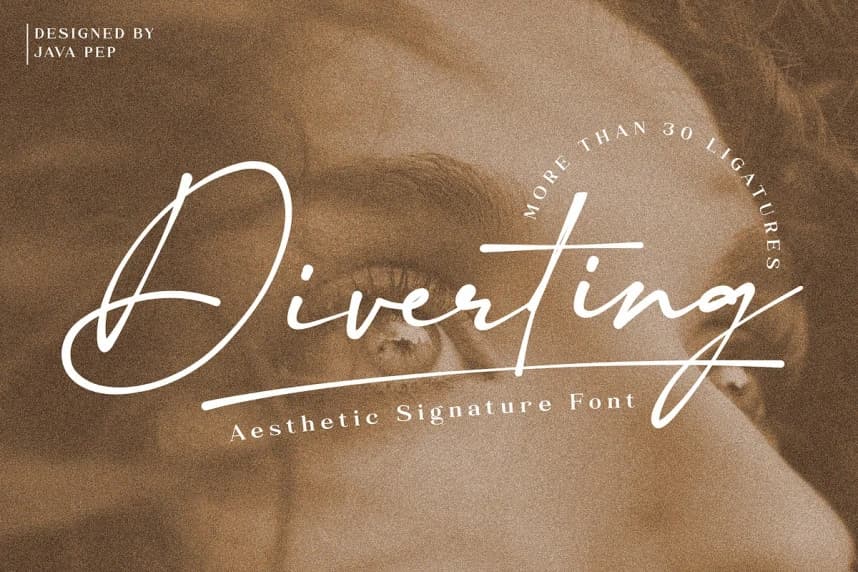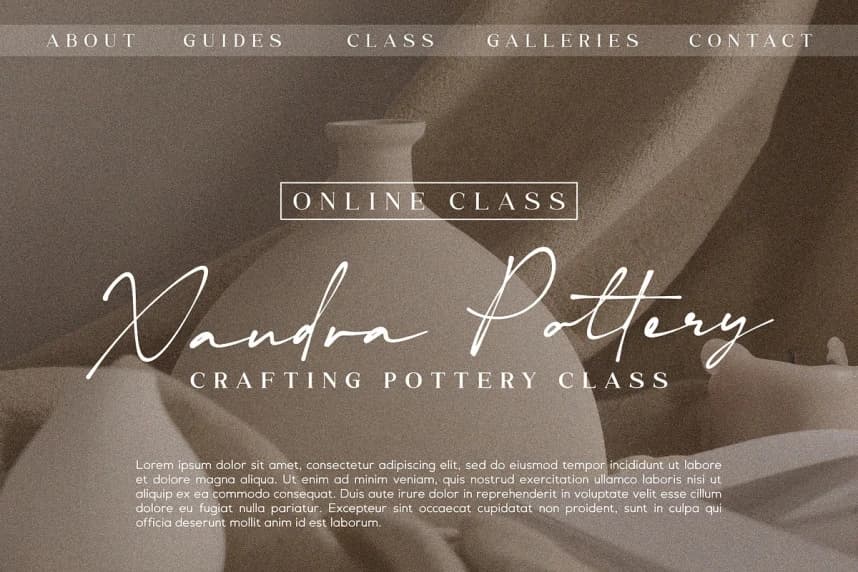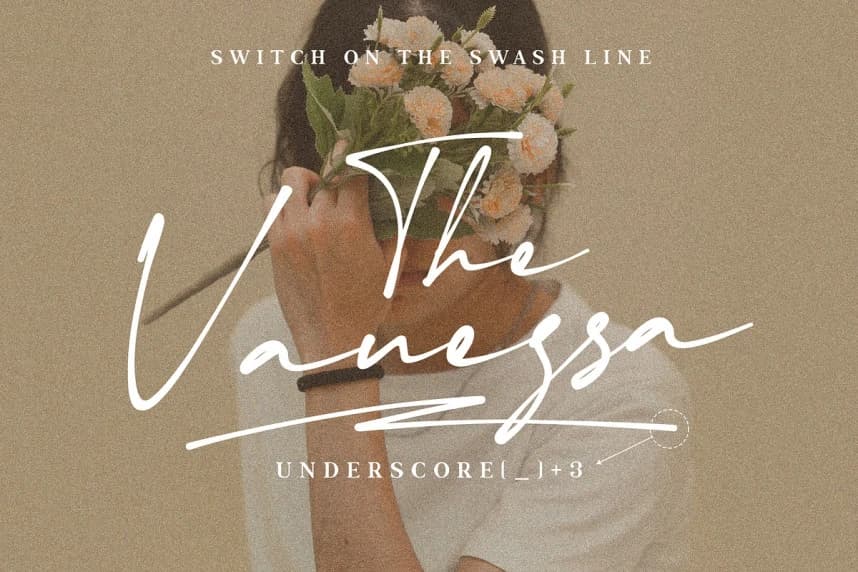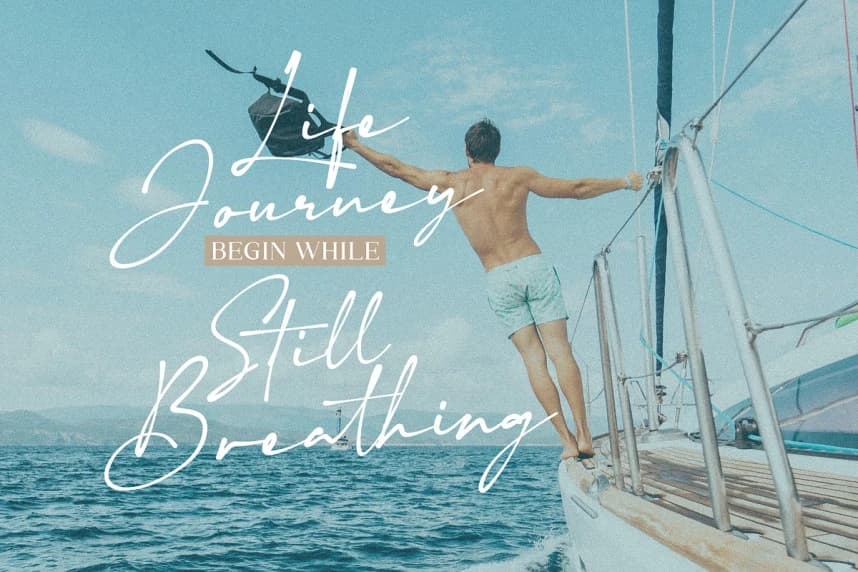
Diverting Script Font
Diverting Script Font is an aesthetic signature font that comes with more than 30 ligatures set so it can feel like a handwritten style vibe. For switching on the swash under line, you can write type "underscore (_) + (plus) and number 1 until 6".